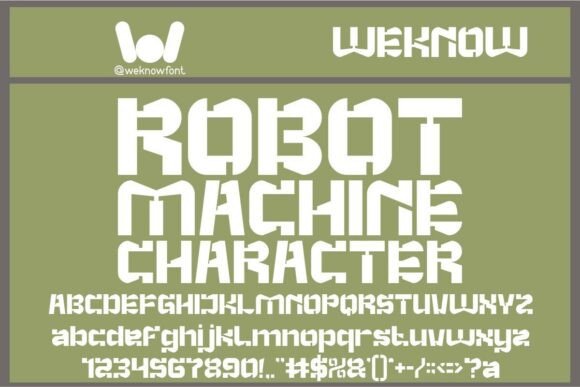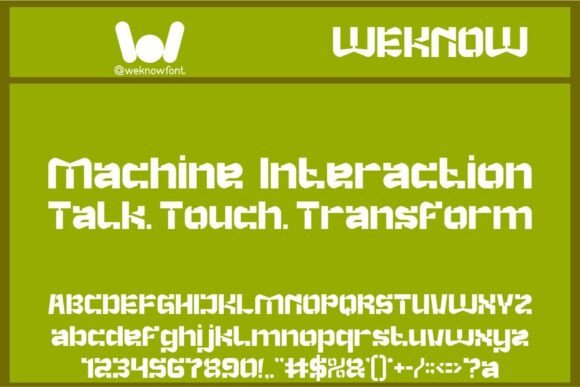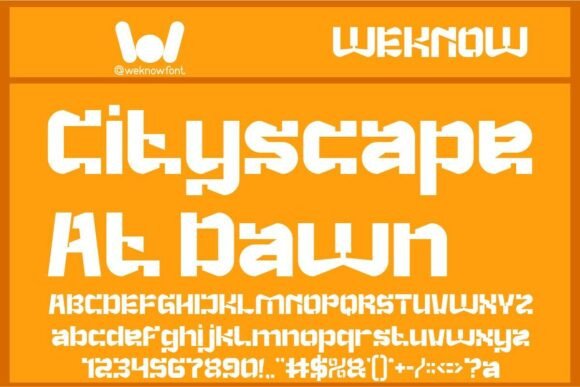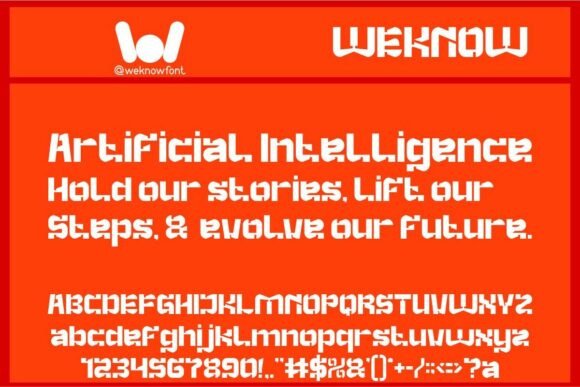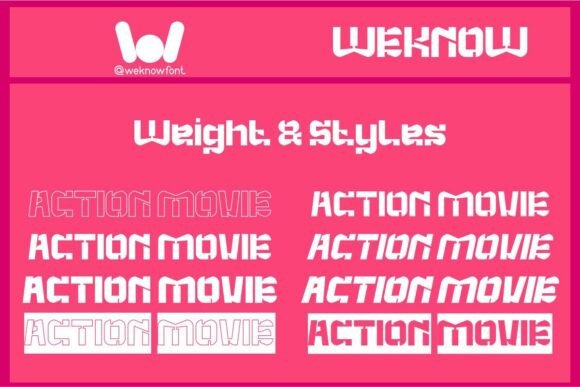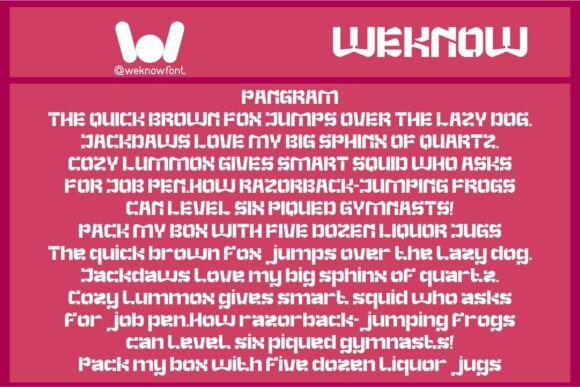
Unleash the Future: Exploring the Action Movie Font
In the realm of typography, few fonts manage to capture the essence of a high-octane, futuristic vibe as effectively as the Action Movie font. This bold, stencil-style typeface is not just a visual statement; it’s an immersive experience designed to catapult your designs into the techno-sci-fi universe. With its geometric, blocky appearance, the Action Movie font is tailor-made for those looking to make a significant impact on their audience, whether in digital media, print, or branding.
The Design and Aesthetic of Action Movie Font
The Action Movie font boasts a distinctive stencil design, characterized by clean lines and a geometric structure. This aesthetic not only lends itself to a futuristic look but also offers a sense of ruggedness and reliability. The blocky letters are meticulously crafted to convey a sense of strength and solidity, making it an ideal choice for designers aiming to infuse their projects with a sense of dynamism and energy.
Versatility Across Creative Projects
One of the standout features of the Action Movie font is its versatility. It’s not confined to a single medium or industry; instead, it can seamlessly integrate into a wide array of creative endeavors. Here are some of the areas where the Action Movie font truly shines:
- Corporate and Brand Identity: Use the Action Movie font to craft a logo or brand identity that exudes innovation and forward-thinking.
- Music and Movie Scene: Add a cinematic touch to your music album covers, movie posters, or film titles.
- Games: Elevate your game titles, character names, or in-game text with a font that’s both eye-catching and thematic.
- Magazines and Books: Use it for headings or quotes to add a modern, edgy feel to your publications.
- Comics and Cartoons: Bring your characters and storylines to life with a font that’s bold and engaging.
- Social Media: Make your posts, stories, or video titles on platforms like YouTube and Instagram stand out from the crowd.
- Websites: Incorporate the Action Movie font into your website design to create a cohesive and captivating user experience.
Why Choose Action Movie Font?
Choosing the right font for your project can be a daunting task, given the vast options available. However, the Action Movie font offers several compelling reasons to be your top pick:
- Uniqueness: It offers a unique aesthetic that’s not easily replicable with other fonts, ensuring your project stands out.
- Legibility: Despite its bold and geometric design, the font maintains a high level of legibility, making it suitable for a wide range of applications.
- Emotional Impact: The font’s futuristic and somewhat industrial look can evoke a sense of excitement and innovation, perfect for brands or projects looking to make a strong statement.
Incorporating Action Movie Font into Your Designs
To truly harness the power of the Action Movie font, consider the following tips when incorporating it into your designs:
- Pairing: When pairing the Action Movie font with other typefaces, opt for fonts that complement its geometric and futuristic feel. Simple sans-serifs or elegant scripts can create a balanced visual hierarchy.
- Color Schemes: Enhance the futuristic vibe with a bold and vibrant color scheme. Neon colors, metallic tones, or a gradient effect can further amplify the font’s impact.
- Contextual Use: While the Action Movie font is versatile, it’s essential to consider the context and audience of your project. Ensure that the font aligns with the message and tone you wish to convey.
The Action Movie font is more than just a typeface; it’s a design statement. Its bold, stencil-style appearance coupled with its geometric precision makes it a formidable tool in the hands of designers. Whether you’re looking to make a mark in the world of branding, digital media, or print, this font offers the perfect blend of style, versatility, and impact. With the Action Movie font, you’re not just designing; you’re creating an out-of-this-world experience.